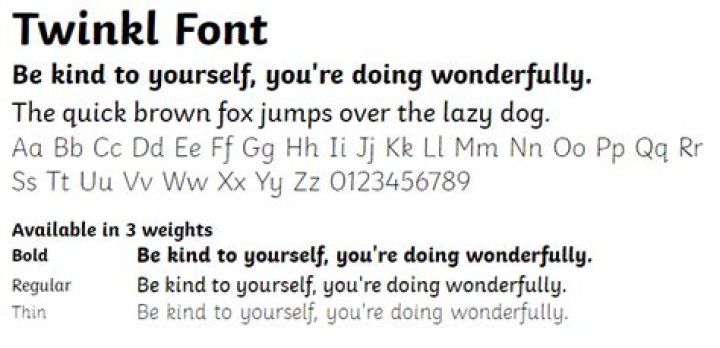
Subsequently, one may also ask, what is the font used in primary schools?
Comic Sans the rounded, sans serif font, with a single storey 'a' and a simplified 'g' has often been the go-to choice for teachers looking to create teaching and learning materials.
What font looks like children's handwriting?
Kidprint. The Kidprint font is designed to look like a child´s printing.
Which font is best for primary school?
What are the best fonts for kids?- Sassoon Primary.
- Gill Sans Infant.
- Bembo Infant.
- Plantin Infant.
- Andika – free Google font.
- Futura – available on most computers.
- KG Neatly Printed Font – free for personal use.
What is the best font for letters?
Basic fonts like Arial, Cambria, Calibri, Verdana, Courier New, and Times New Roman work well. Avoid novelty fonts like Comic Sans, or fonts in script or handwriting-style.What font has normal?
Google font review – typefaces with a primary-school-style lowercase 'a'| Typeface (+ link) | Styles | Notes (all have single-story “a” glyphs) |
|---|---|---|
| Amaranth* | 4 | Also has a loopy 'k' + simple 'g' |
| Caudex | 4 | Serif |
| Quicksand | 3 | Quirky, widesp a c e d |
| Comfortaa | 3 | Quirky |
What font is best for handwriting?
20 Best Free Handwriting Fonts for 2018- Amatic SC. Amatic SC (Small Caps) is a simple but effective hand drawn webfont.
- Indie Flower. Beautiful handwriting font, with excellent readability.
- Kalam. An informal style handwriting font optimized for web usage.
- Kristi.
- Permanent Marker.
- Daniel.
- Marck Script.
- Desyrel.
What font is rounded?
Rounded typefaces have rounded corners and/or terminals. Their softness tends to make them feel friendly and inviting. Sans-serif fonts usually come to mind when you think of rounded fonts, but there are rounded serif typefaces as well. Rounded fonts are often found on food packaging and content aimed at children.What font is used in Australian schools?
Links. Cursive Handwriting explains the use of the Victorian Modern Cursive Font used in Western Australian Schools. The images used in the worksheets were bought from clipart.com.Is a Twinkl account free?